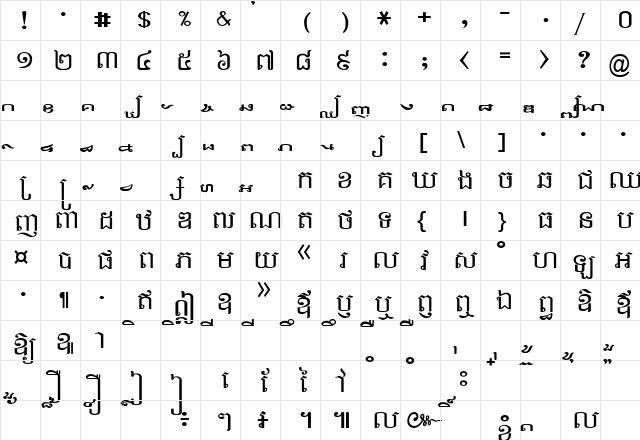
Kh-KohRussey Regular
| Foundry | Masavang |
| Designer | Masavang SEAN |
Design Context for Kh-KohRussey Typeface
Kh-KohRussey is a composed and adaptable typeface that performs quietly and consistently across a wide range of design contexts.